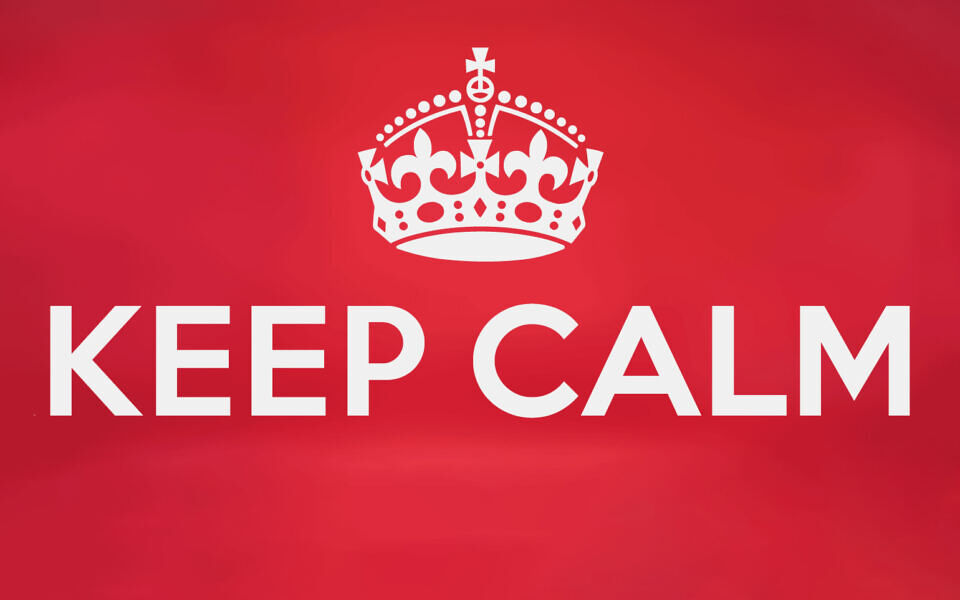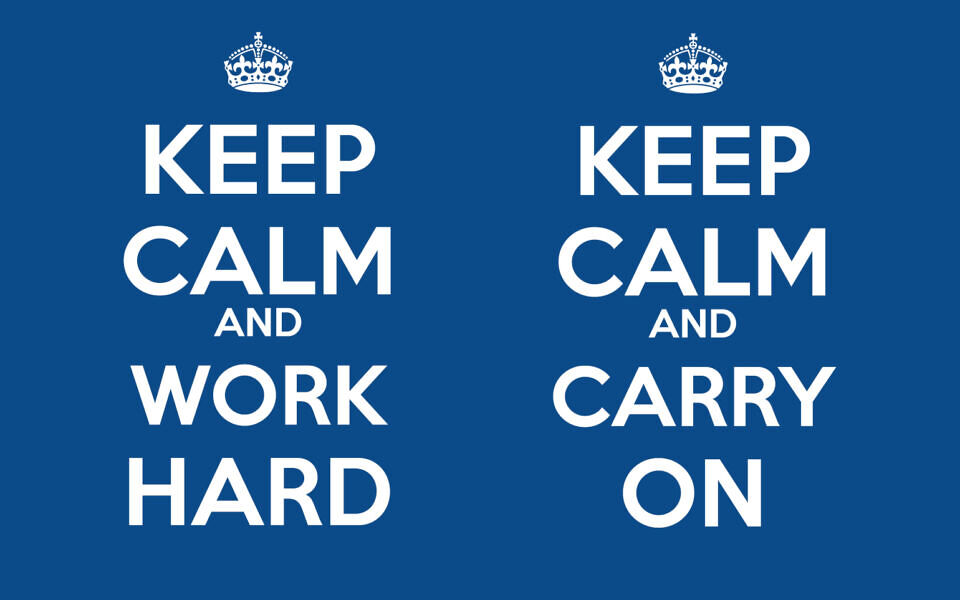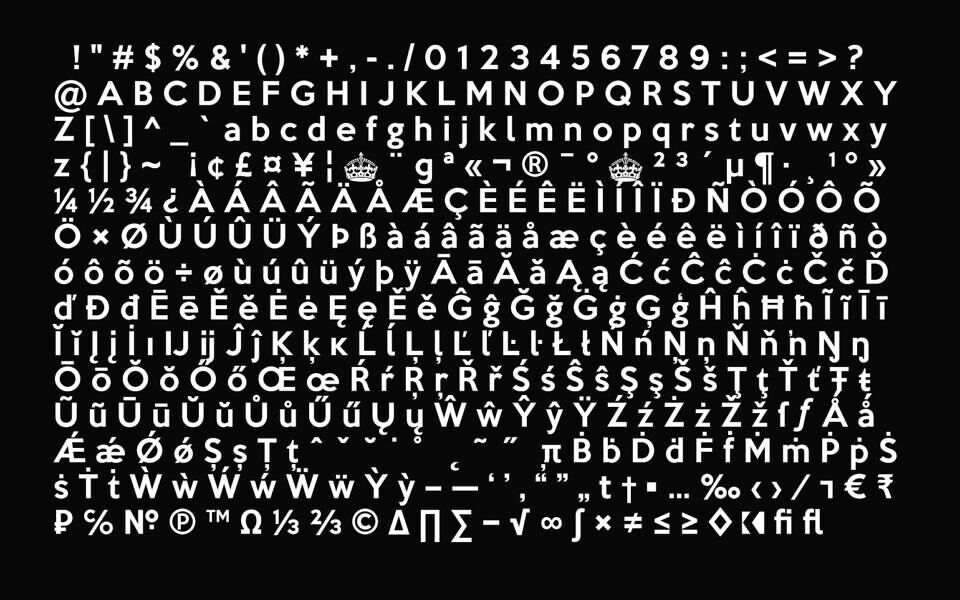
Keep Calm is a family of fonts developed from the now famous World War 2 poster that was designed in 1939 but never issued, then rediscovered in 2000. As well as the original Keep Calm font, the Medium weight of the poster, three new weights are available – Book (regular), Heavy and Light – and each comes with a complimentary Italic.
The crown motif from the top of the Keep Calm poster is located at the plus minus ± and section § keystrokes (Alt 0177 and Alt 0167 on Windows). The lowercase g follows the Gill / Johnston eyeglass model, but also included is an alternative, single-story g at the Alt G keystroke (Alt 0169 on a Windows keyboard), the normal location of the copyright symbol which has been relocated elsewhere. An alternative lowercase t, without the curved wedge cutaway, is provided at the Alt T (dagger) keystroke (Alt 0134 on Windows).